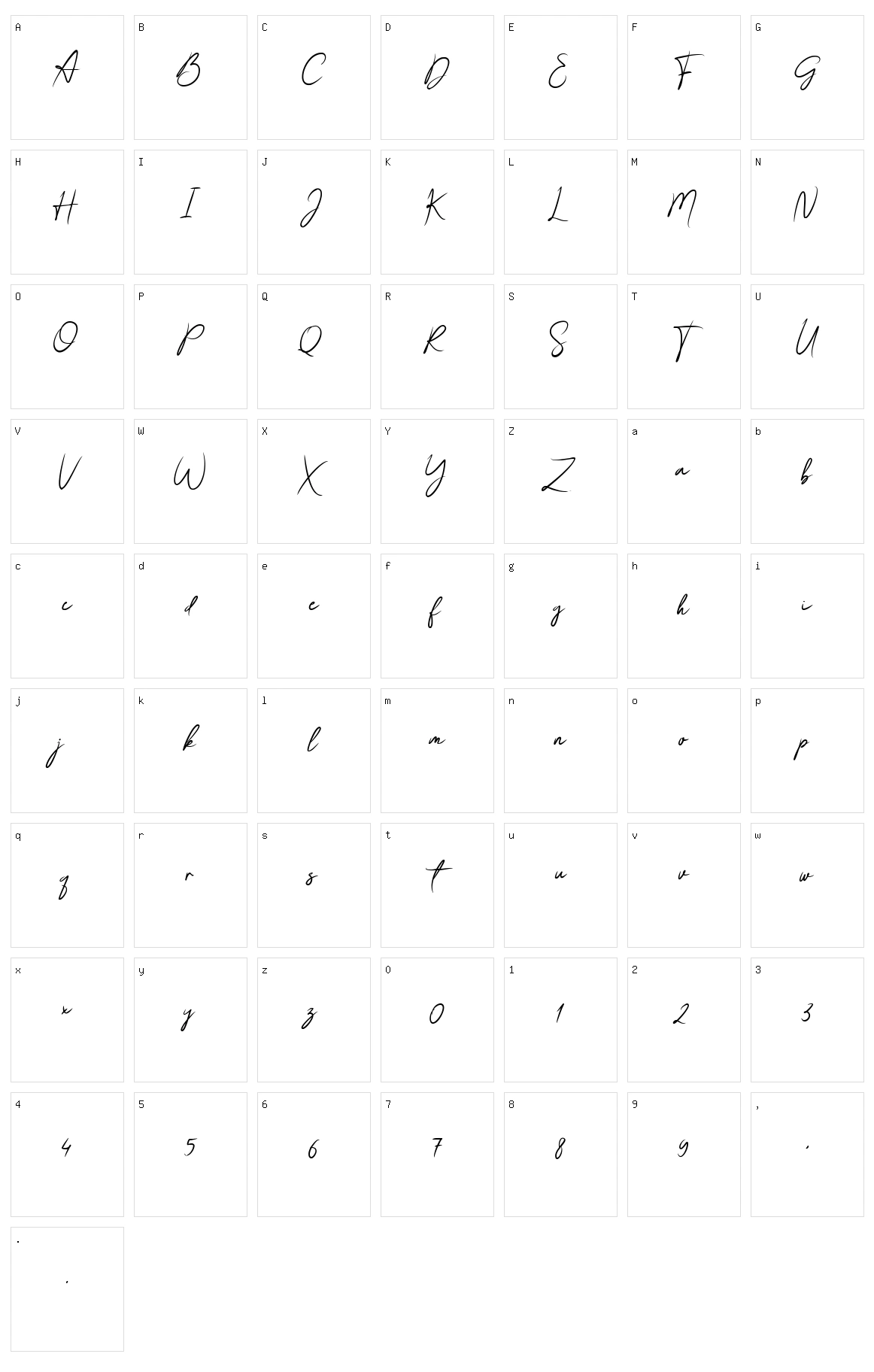
The free font Gishela is carefully designed by Bale, showcasing a thoughtful balance of creativity and usability and falls under the Script font style. When you download the ZIP file, it contains only 39.73 KB of font files, making it lightweight and quick to download. Please review the license details below to understand permitted usage and distribution rights. If license information is not available, we recommend using this font for personal projects only or contacting the author directly for commercial usage permissions.